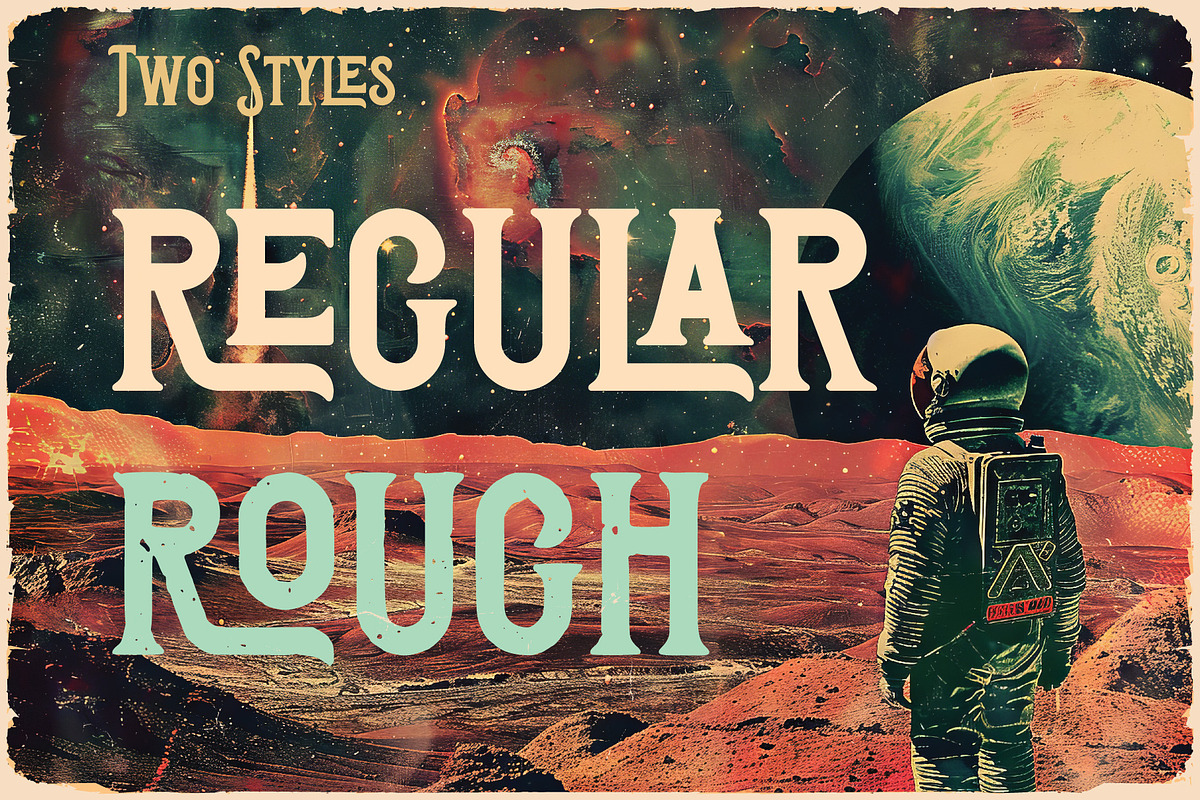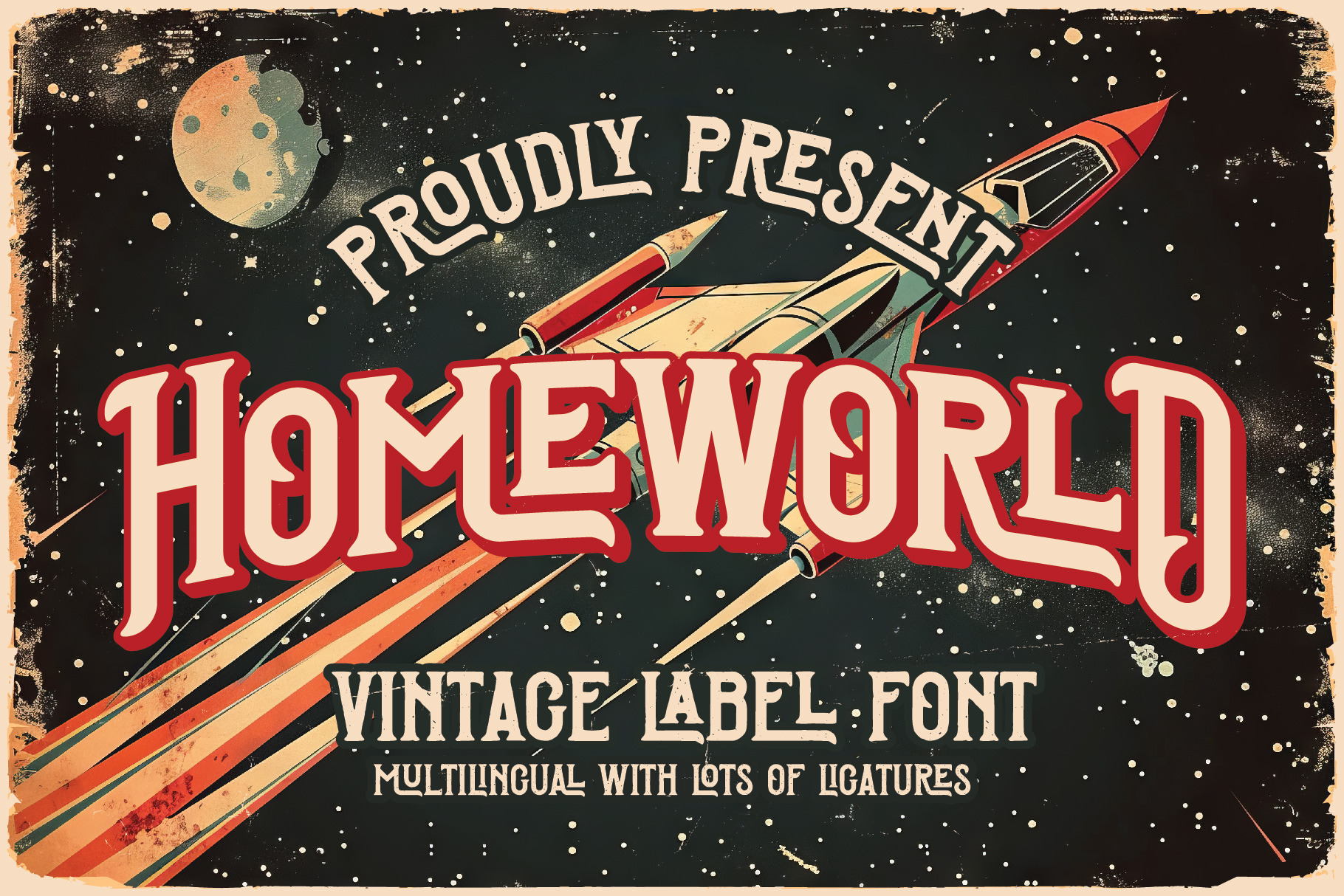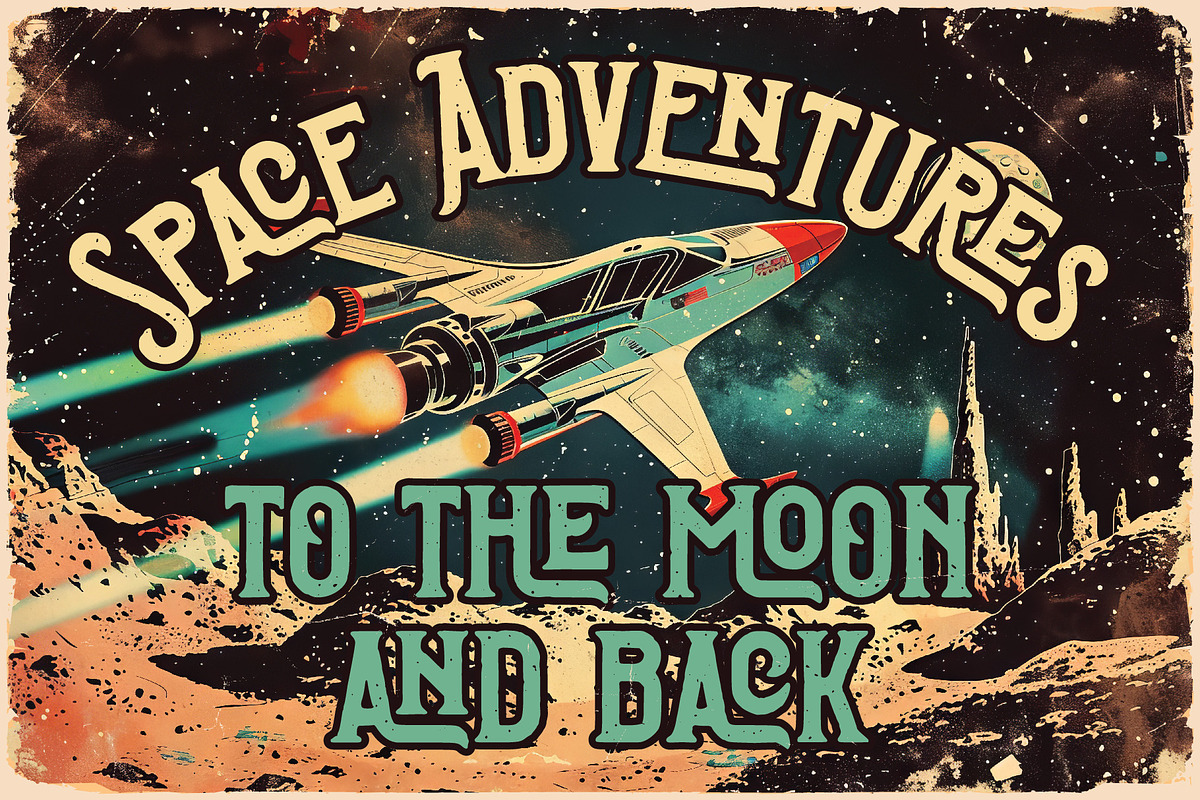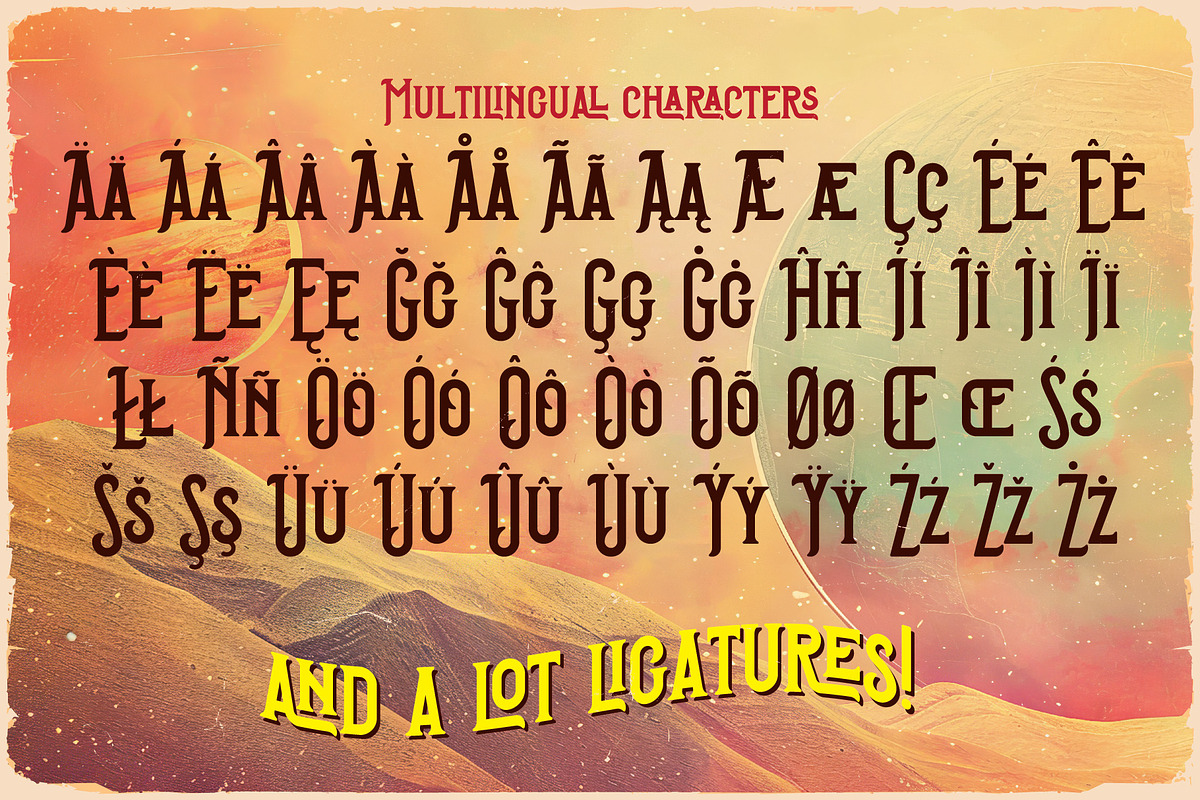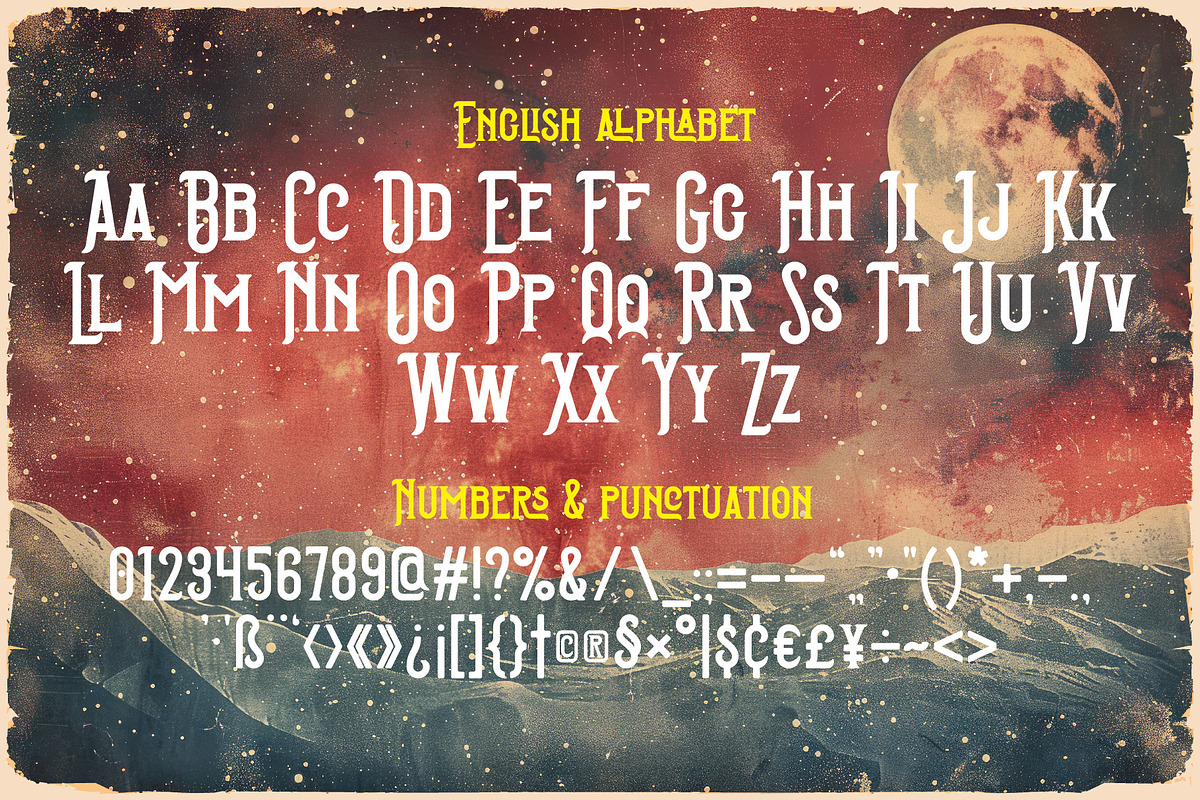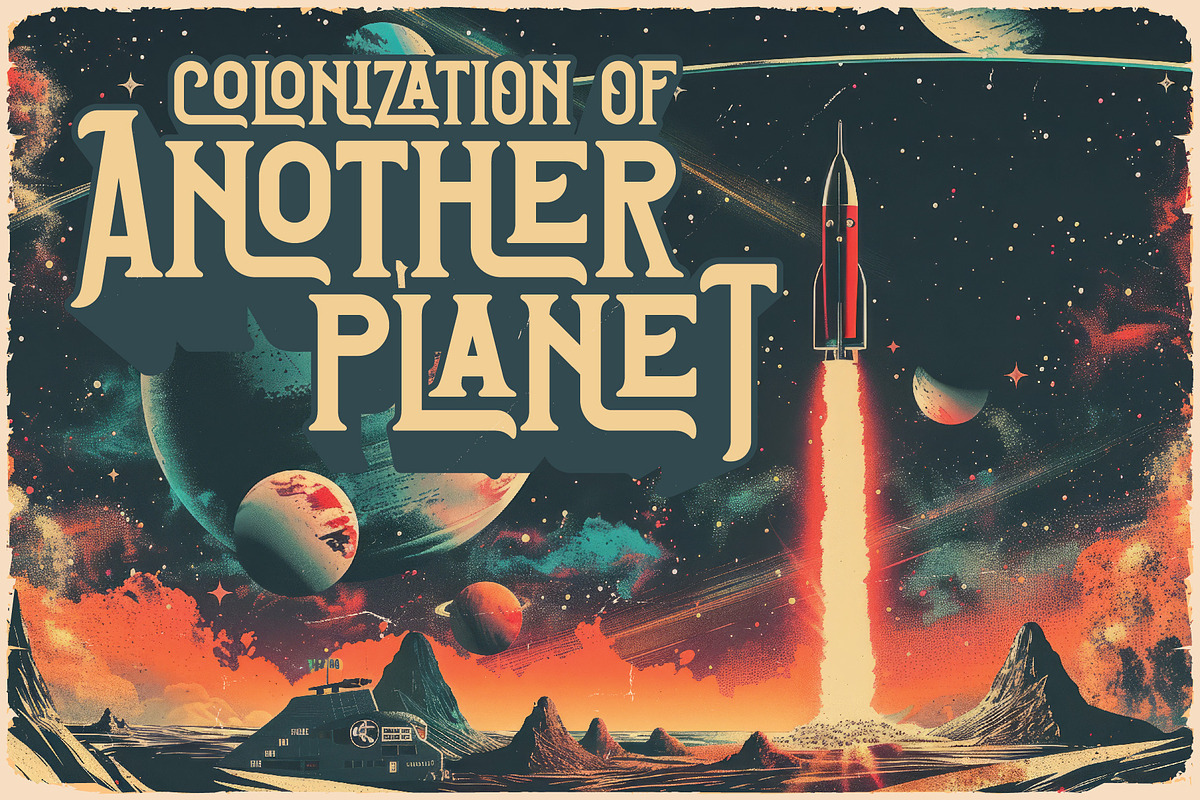
Homeworld Vintage Label Font
Unique, creative, vintage, retro, monogram & label serif font. Comes with multilingual support & alternate characters, ligatures - great for your new logo, monogram or branding project.
- 2 font styles - Regular & Textured
- Multilingual support & alternate characters, ligatures
- Great for retro or vintage style branding projects